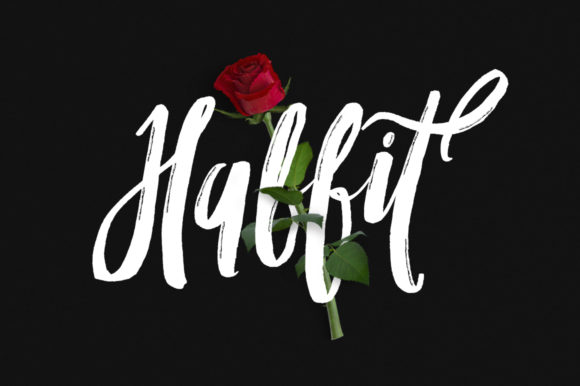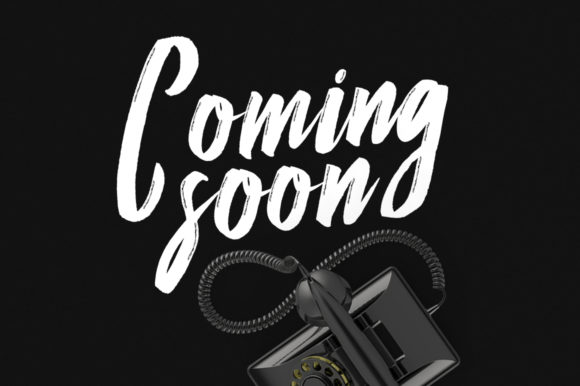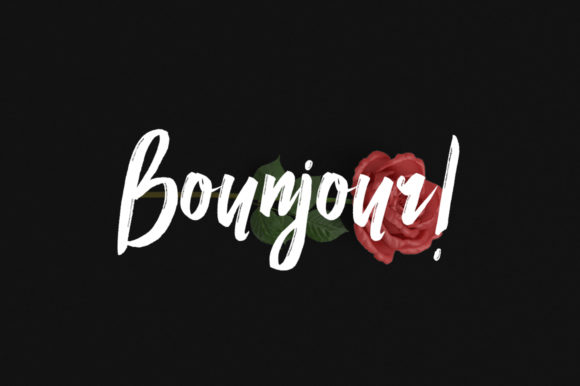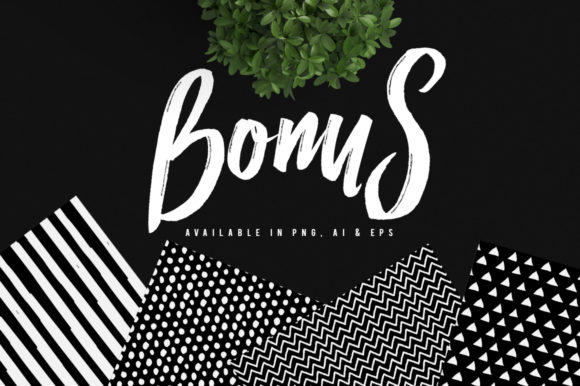
Habbit Font
About Habbit Font
Habbit is a distinct and elegant handwritten font. It will look particularly adept when used in logos, branding, packaging design, and much more. This masterfully designed typeface is a true must-have.